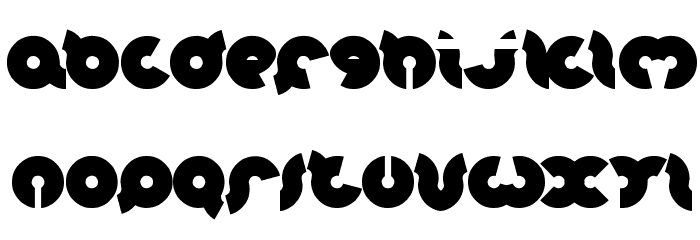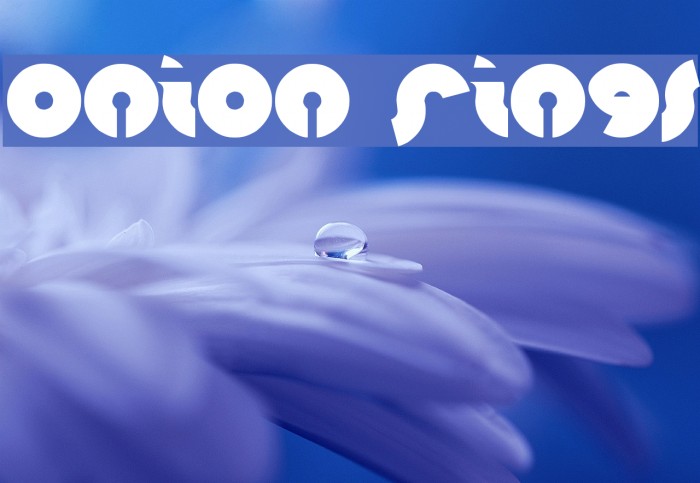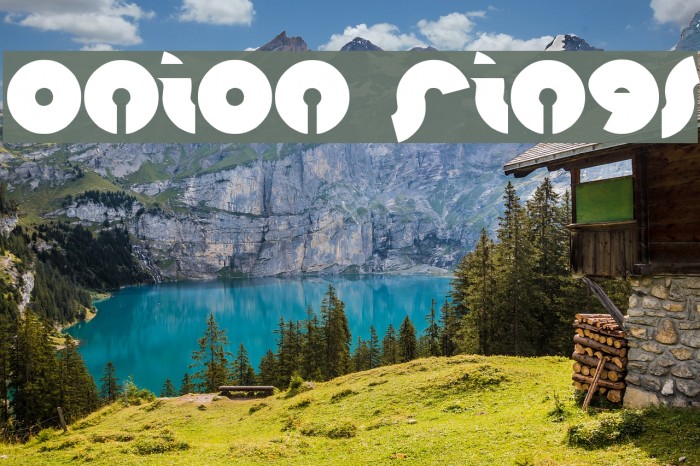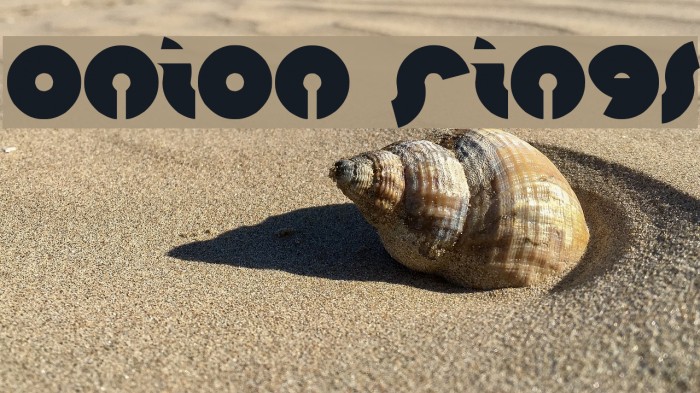
onion rings Font
This font features a bold, circular design with a playful and modern aesthetic. Each character is crafted with a unique, geometric style that incorporates circular elements and cut-out shapes, creating a visually striking appearance. The letters are consistent in their boldness, with a uniform thickness that gives the font a cohesive look. The overall design is both artistic and functional, making it suitable for creative projects that require a distinctive and eye-catching typeface.
A bold, circular font with geometric and playful design elements.
- Proposed Projects: Ideal for branding, posters, album covers, and any creative project that requires a bold and unique typeface.